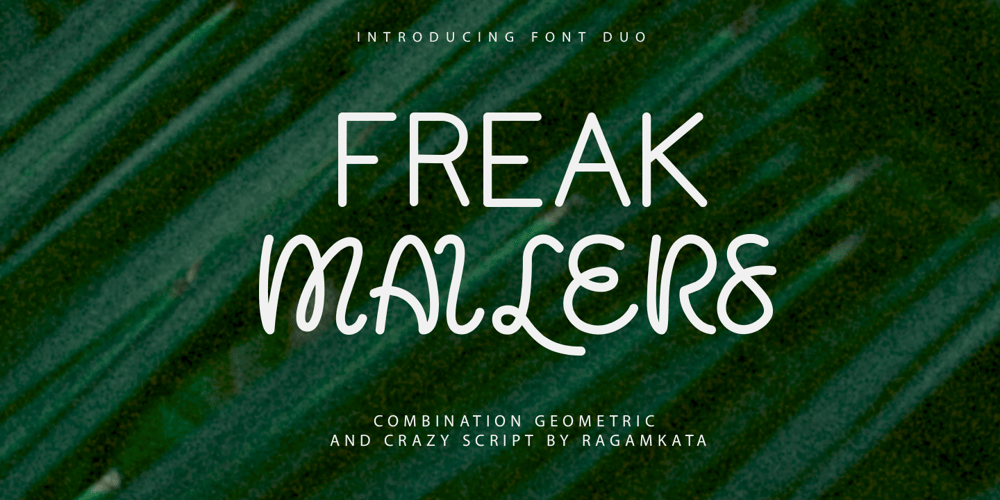
Freak Mailer Font Family was designed by Yogiswhara Dio Prakoso Riadi and published by RagamKata. Freak Mailer contains 4 styles and family package options. Freak Mailers is a rounded combination font duo. Sans serif typeface with crazy Script Typeface . But make this font look unique.Freak Mailers clean classic and mindful , it combine in one font, use this font for anything beauty place for your logo, headline, cover book, magazine and many more.